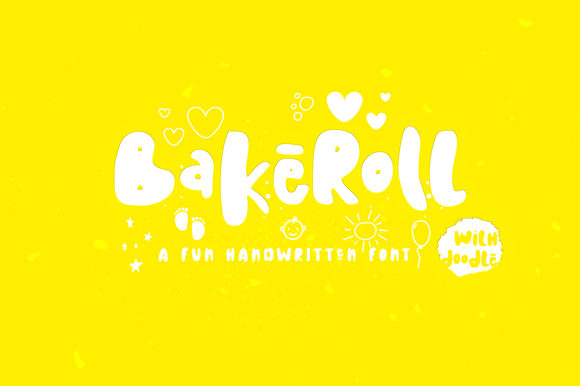
Prepare yourself to fall head over heels in love with BakeRoll Font! This enchanting display font was meticulously crafted to add a dash of whimsy and charm to all your creative endeavors.
Unleash your inner child as you playfully experiment with this font, breathing life into cartoonish characters, engaging children's games, and heartfelt love letters. Each letter dances across the page like a graceful melody, carrying your words to the depths of hearts.
Let BakeRoll Font grace the covers of your captivating books, transforming them into portals to extraordinary worlds. Design posters that ignite imaginations and spark conversations. Unleash your creativity and watch as this font weaves its magic, making every creation a masterpiece.
BakeRoll Font is not just a collection of letters; it's an invitation to embrace the beauty of self-expression. With its enchanting curves and playful spirit, this font will captivate your audience, leaving an unforgettable impression.
So, dear wordsmith, seize this opportunity to elevate your creations to new heights of enchantment. Let BakeRoll Font be your muse, inspiring you to craft messages that resonate with warmth, joy, and enduring love.